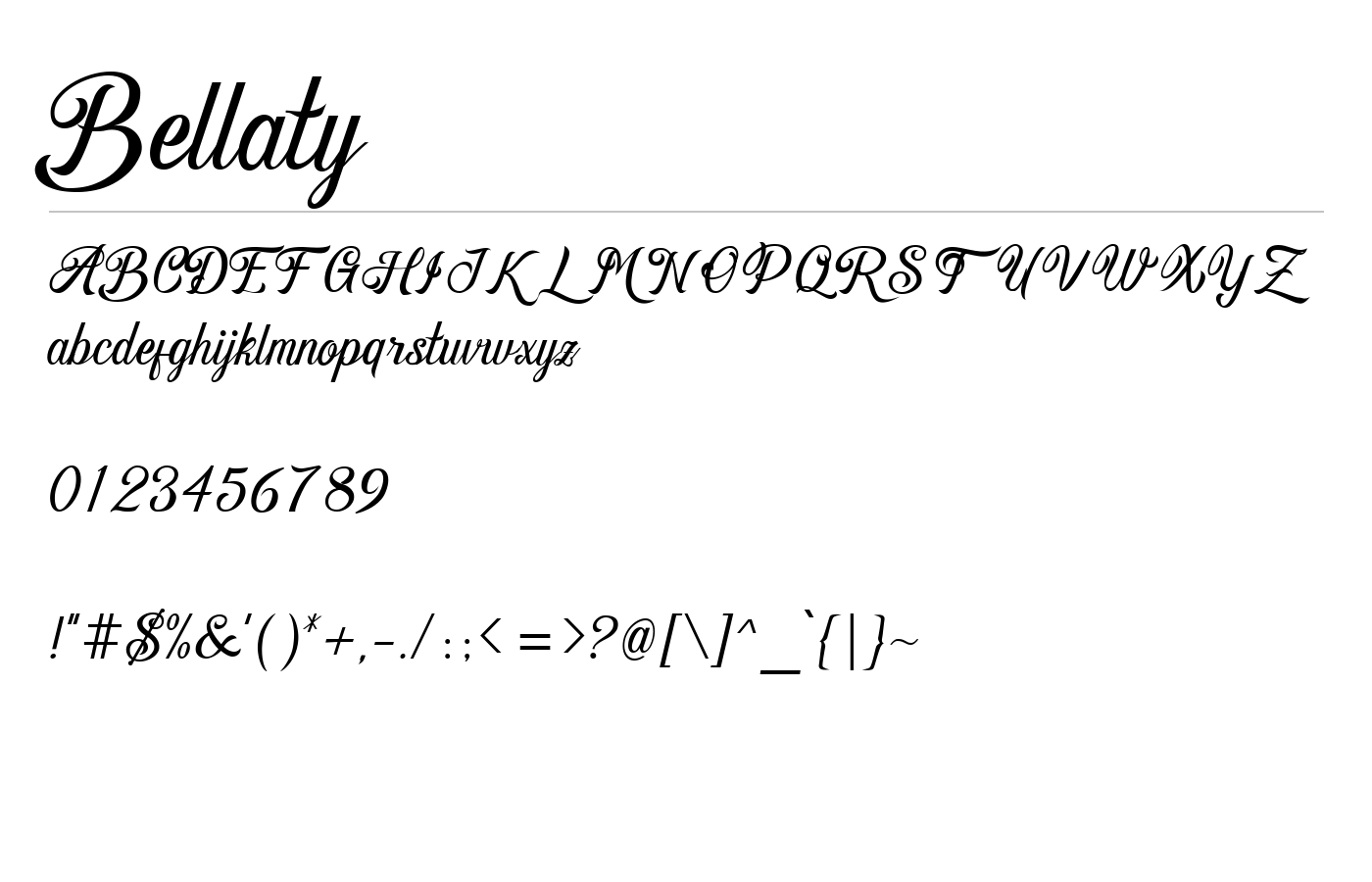
Bellaty is an elegant script font with graceful, flowing letterforms and high contrast strokes that give it a refined, sophisticated look. Its slender, slightly condensed shapes and delicate curls make it ideal for luxury branding, invitations, and stylish editorial designs where a touch of classic beauty is desired. This font works best in large sizes, bringing a sense of charm and timeless elegance to headlines and logos.
Bellaty Font
About Bellaty Font
| Font family | Bellaty Font |
| Designer | Moh .taufiq |